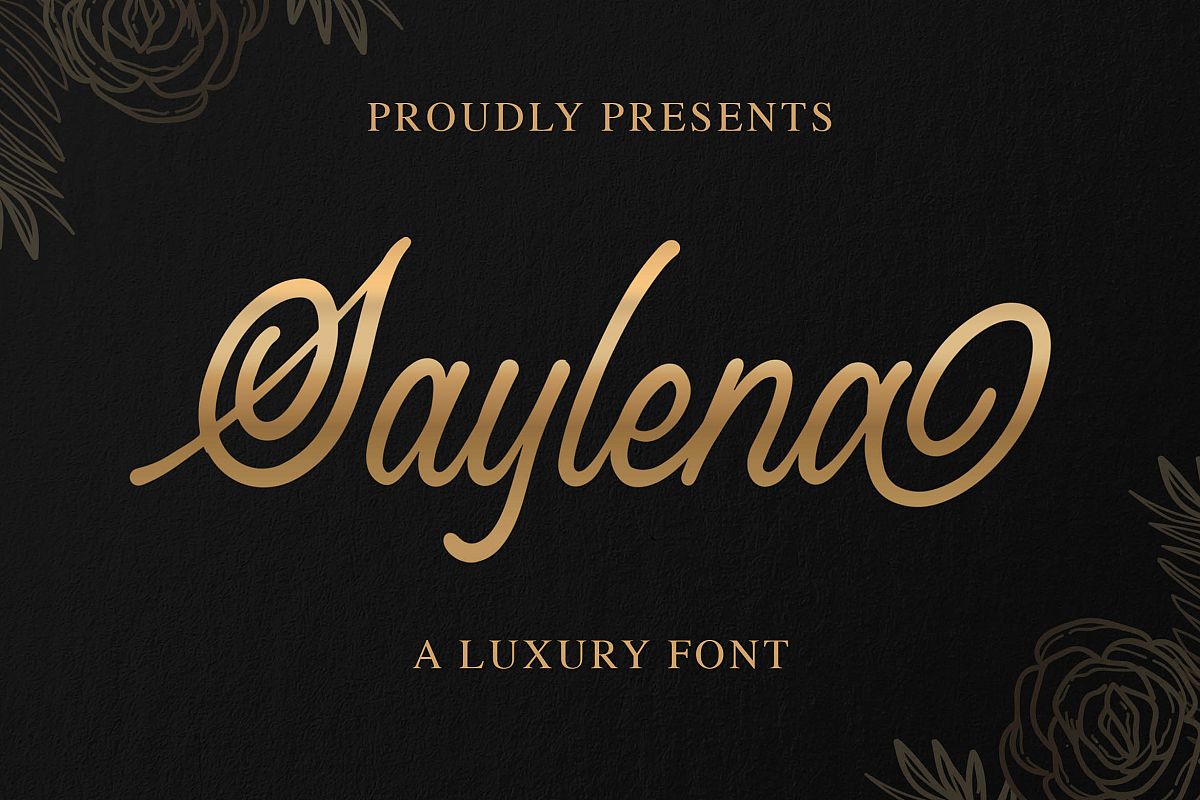
Introducing of our new product the name is Saylena Luxury Script Font. Saylena inspired by Luxury script style this font is a fun theme very good for signature, poster, fashion, wedding, branding etc